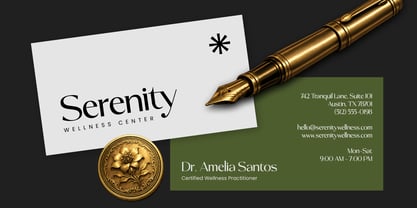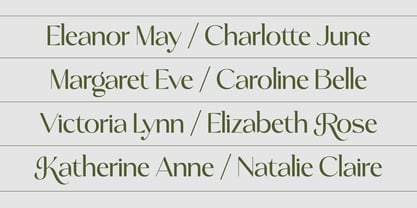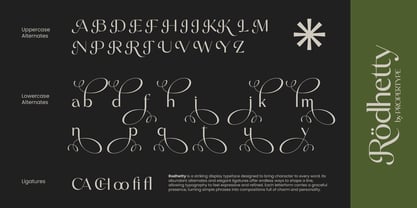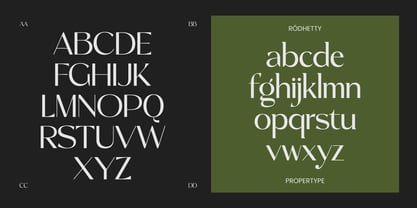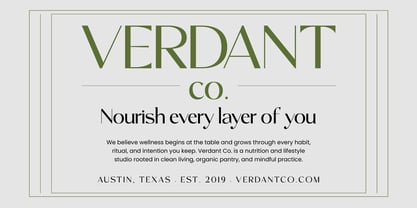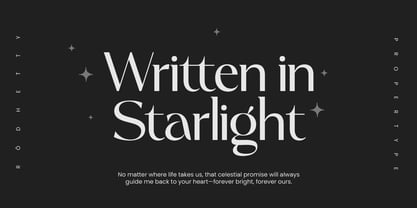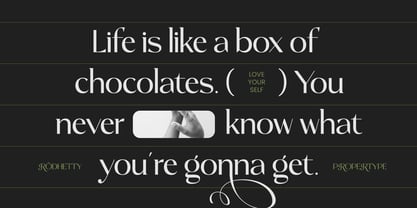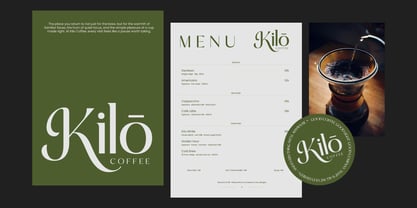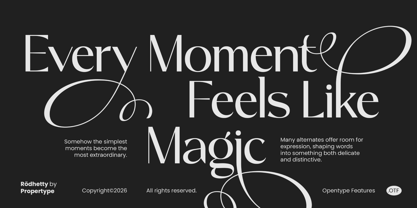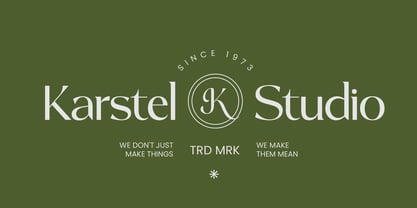
Rodhetty
The Rodhetty Font Family was designed by Nadia Auliana and published by Propertype. Rodhetty contains 64 styles and family package options. More about this family
Rodhetty is an Elegant Display Font that features Contrast Lines and George curved terminals that give a sleek and elegant look to logos, holiday cards, wedding invitations, quotes, advertisements, and more. Rodhetty has a full set of modern uppercase and lowercase letters, numbers, punctuation, and multilingual symbols. Includes opentype features like ligatures, alternates, and more. All Multilingual symbols Opentype features (ligatures, alternates) Accessible in Adobe Illustrator, Adobe Photoshop, Adobe InDesign, even works in Microsoft Word. PUA Coded Characters - Fully accessible without additional design software. Multilingual character support: (Afrikaans, Albanian, Catalan, Croatian, Czech, Danish, Dutch, English, Estonian, Finnish, French, German, Hungarian, Icelandic, Italian, Lithuanian, Maltese, Norwegian, Polish, Portuguese, Slovenian, Spanish, Swedish, Turkish, Zulu) Follow my store for future updates, and for more of my work, Thanks!